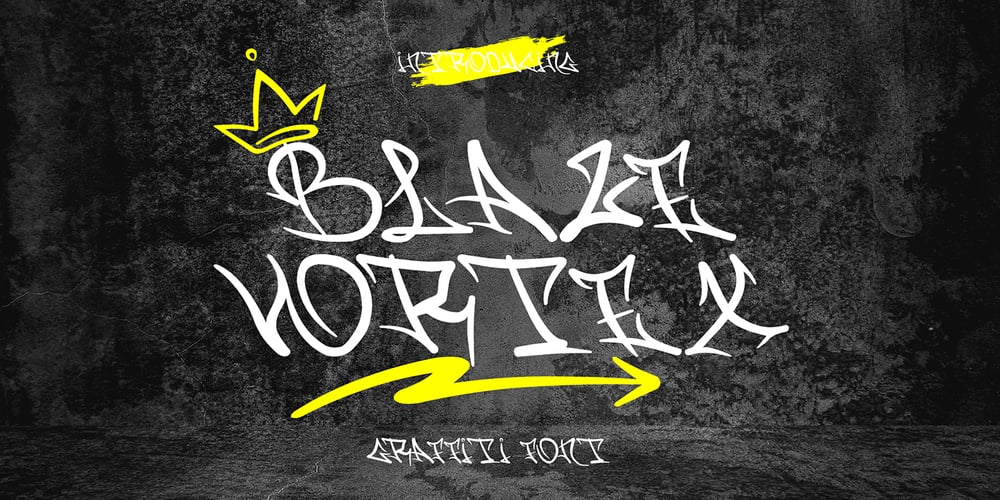
Blaze Vortex Graffiti Font Family was designed by Sipanji and published by Sipanji21. Blaze Vortex Graffiti contains 2 styles and family package options. “Blaze Vortex” is an edgy graffiti monoline font that adds a raw and urban touch to your designs. With its captivating swash decorations, this font takes your designs to the next level of awesomeness. Perfect for streetwear brands, music posters, and urban-themed projects, “Blaze Vortex” exudes boldness and excitement. Unleash your creativity and make your designs stand out with this electrifying font.note : key for swash use : ABCDEFGHIJKLMNOP